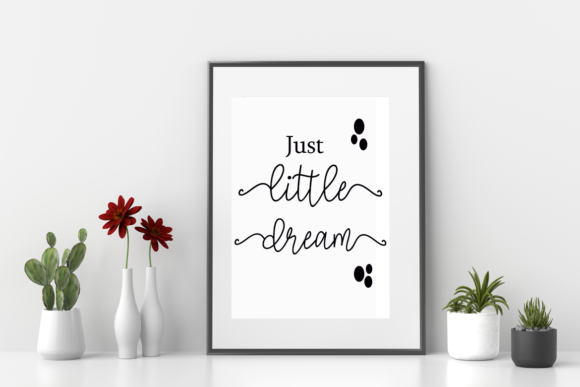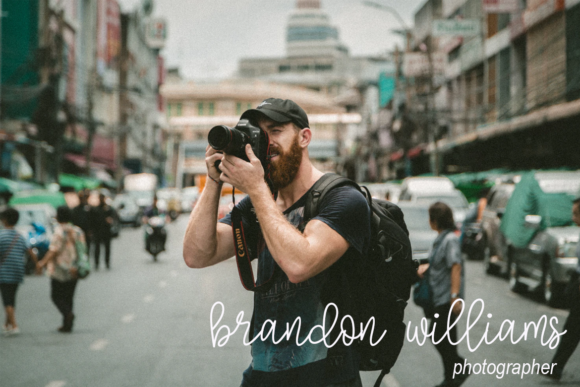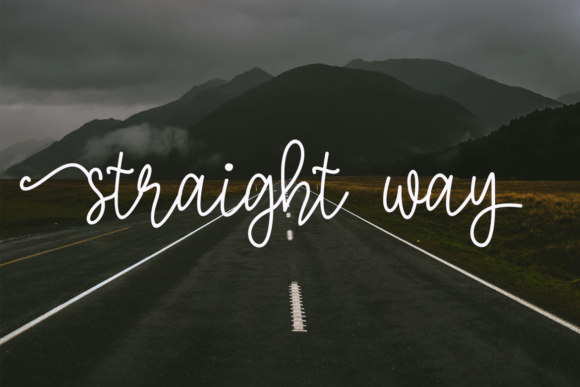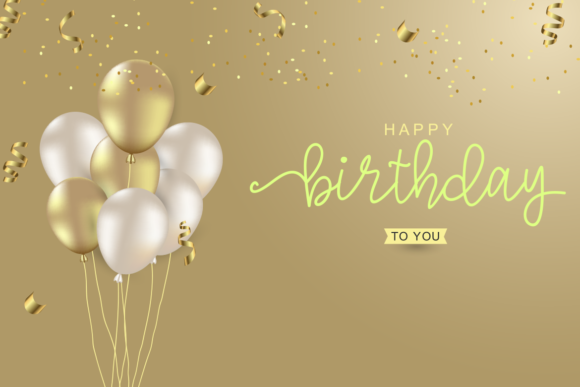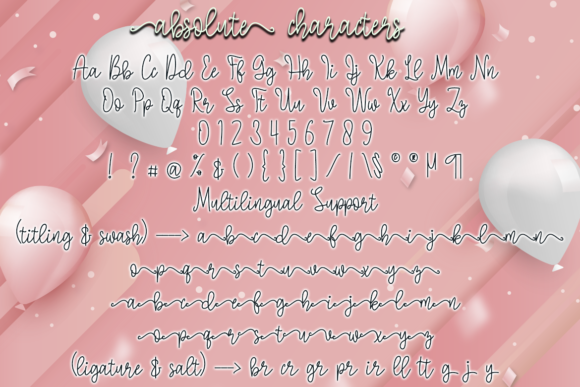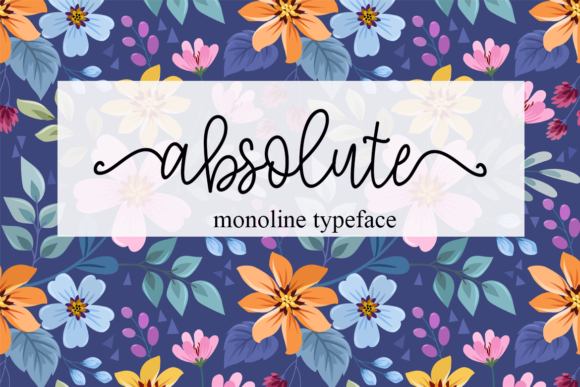
The Elegance of Absolute Font: A Designer’s Delight
I’ll never forget the time I was working on a wedding invitation project, and my client asked for a font that exuded elegance and sophistication. I scoured the internet, tried countless fonts, but nothing seemed quite right. That was until I stumbled upon Absolute Font. It was love at first sight! 💕
Absolute Font is a handwritten font that feels incredibly elegant and flowing. Its beautiful curves and lines make it perfect for wedding invitations, thank you cards, quotes, greeting cards, logos, business cards, and every other design that needs a handwritten touch.
- ✨ Elegant and flowing handwritten style
- 💫 Perfect for wedding invitations, quotes, and greeting cards
- 🎨 Highly versatile for various design projects
While Absolute Font is an amazing font, there are a few things to keep in mind:
- ⚠️ May require some time to get used to the OpenType features and glyphs
- 🤔 Limited availability of certain characters or symbols
The Designer Inspiration Behind Absolute Font
Absolute Font was designed with the intention of creating a beautiful, elegant handwritten font that would evoke feelings of sophistication and romance. The designer aimed to craft a font that would be perfect for special occasions, such as weddings and holidays, while also being versatile enough for everyday design projects.